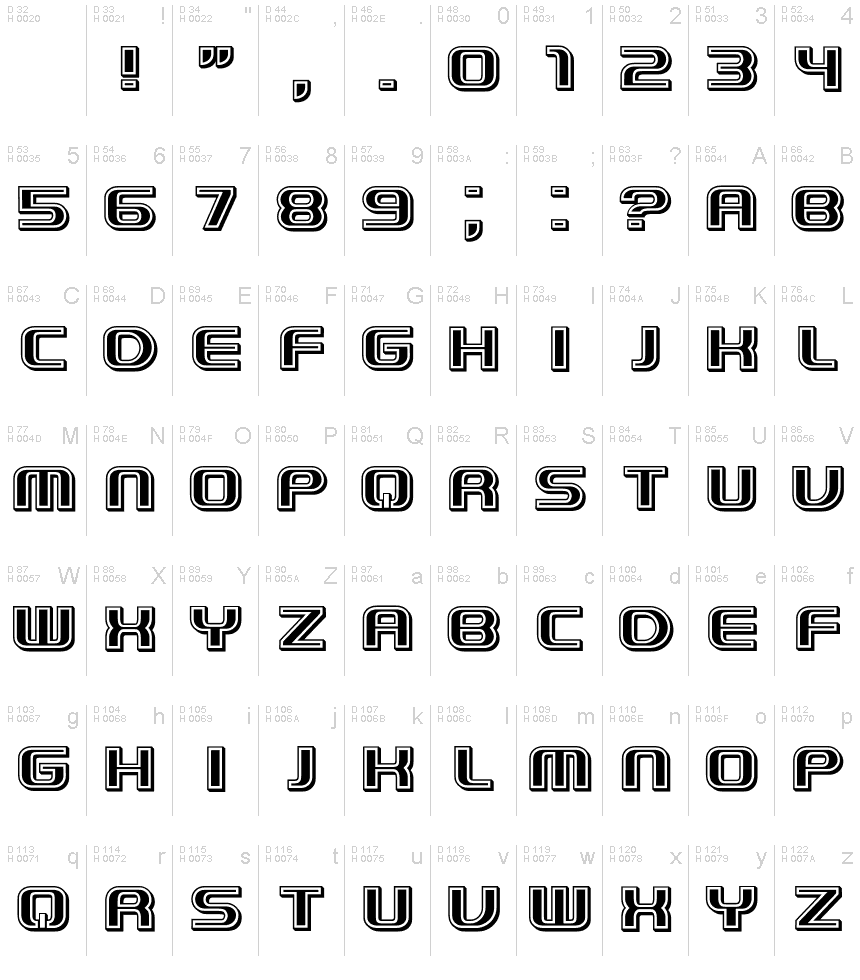
Strano Regular
Strano, the brainchild of renowned designer Vladimir Nikolic, is a striking and unique expanded font that is perfect for making a bold statement in your design projects. With its unconventional style and eye-catching appearance, Strano is an ideal choice for everything from edgy branding campaigns to contemporary editorial layouts. The semi-bold typeface and expanded width make Strano an excellent option for headlines, titles, and any other text that needs to be emphasized. Whether you're creating marketing materials or designing a website, Strano is sure to add a touch of excitement and intrigue to your project.
Strano